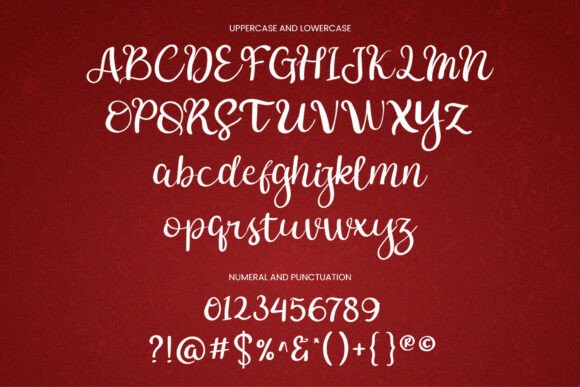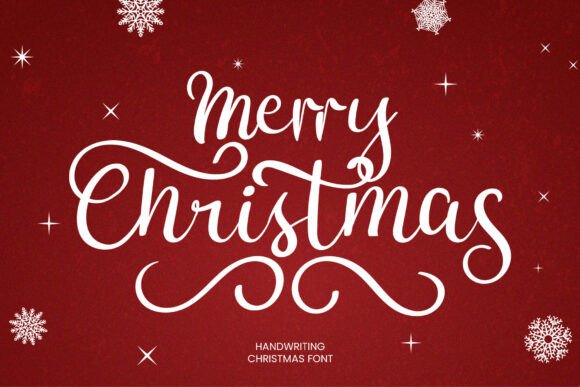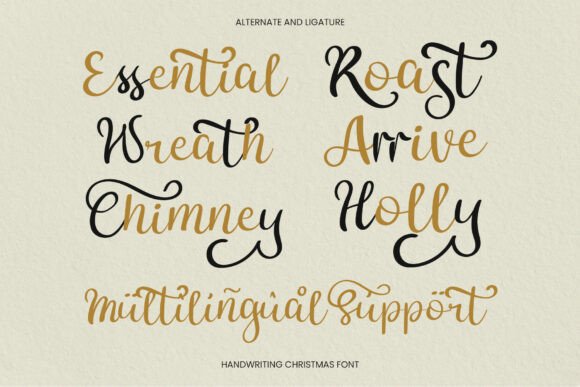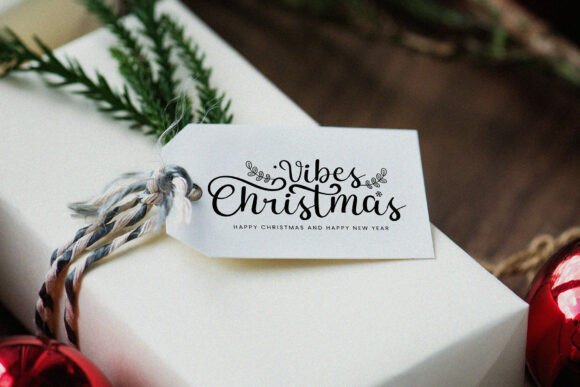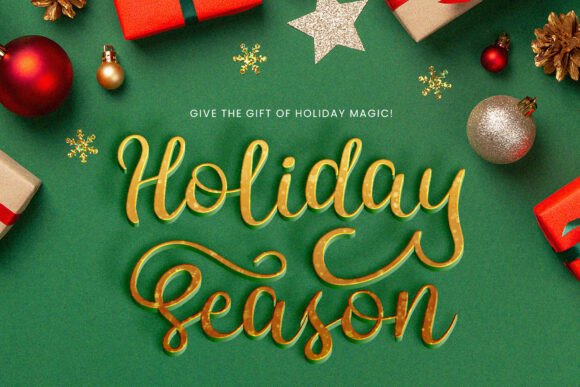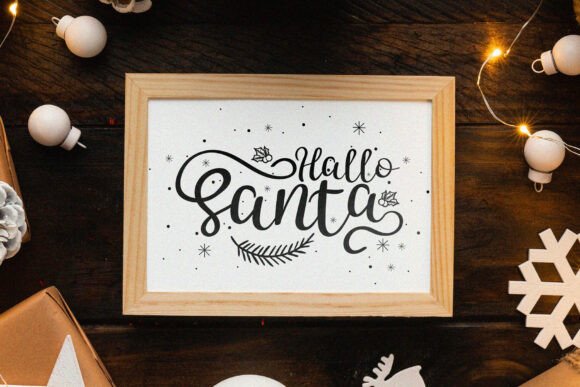
Introduction to Merry Whimsy Font
Merry Whimsy is a joyful and elegant handwritten script font made especially for the holiday season.
With festive swashes, heartful curves, and smooth ligatures, this font is perfect for Christmas cards, winter branding, gift tags, holiday packaging, and seasonal quotes Designed with love and warmth, Merry Whimsy adds a personal and magical touch to every design.
Key Features of Merry Whimsy Font